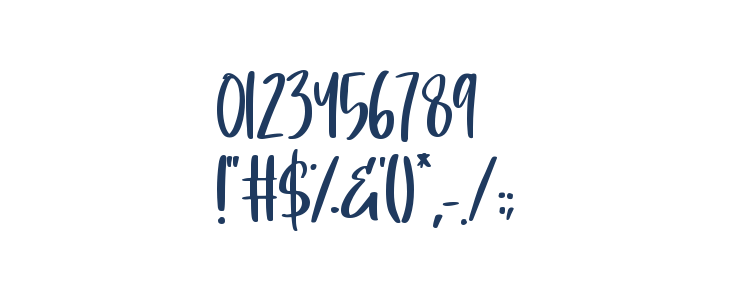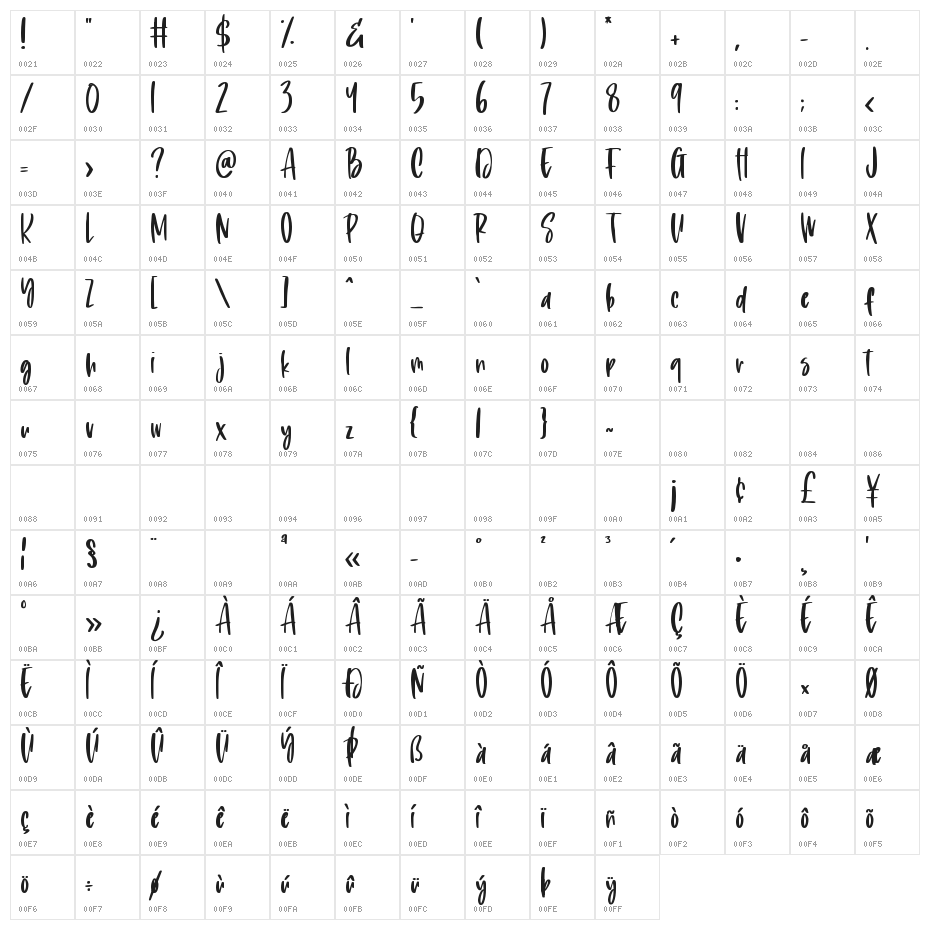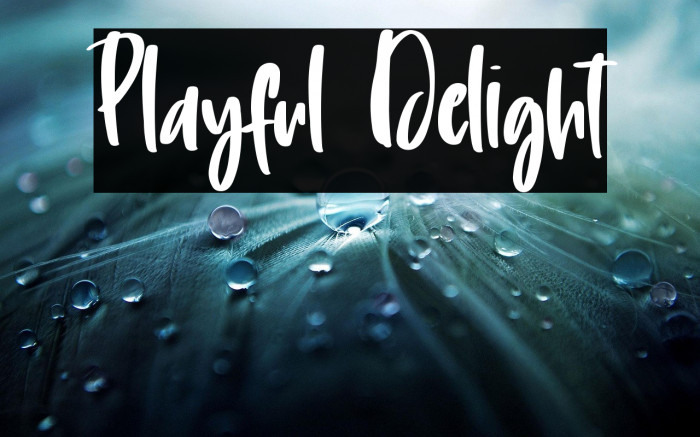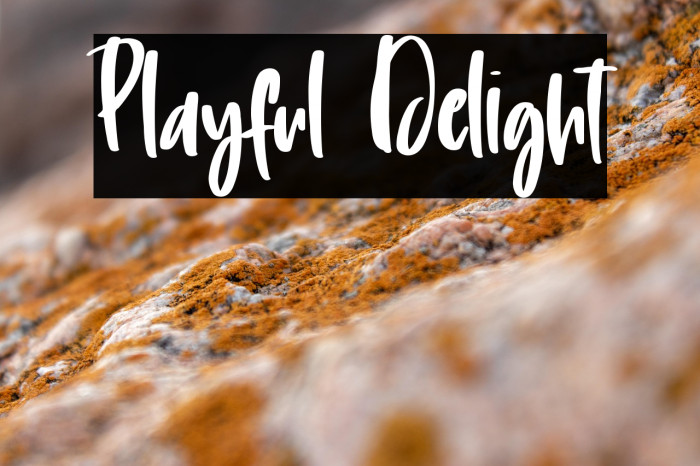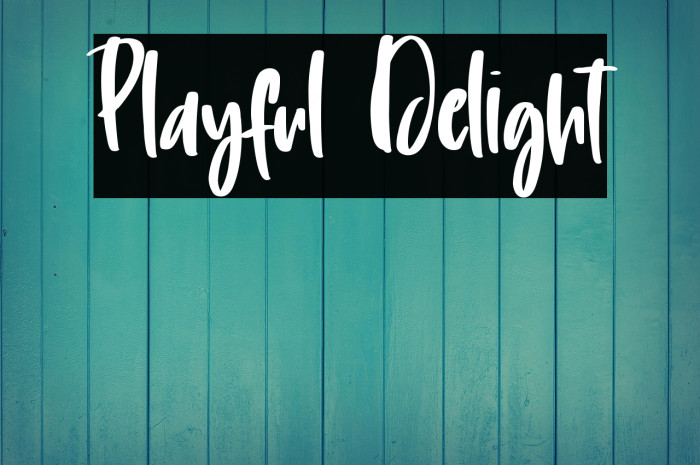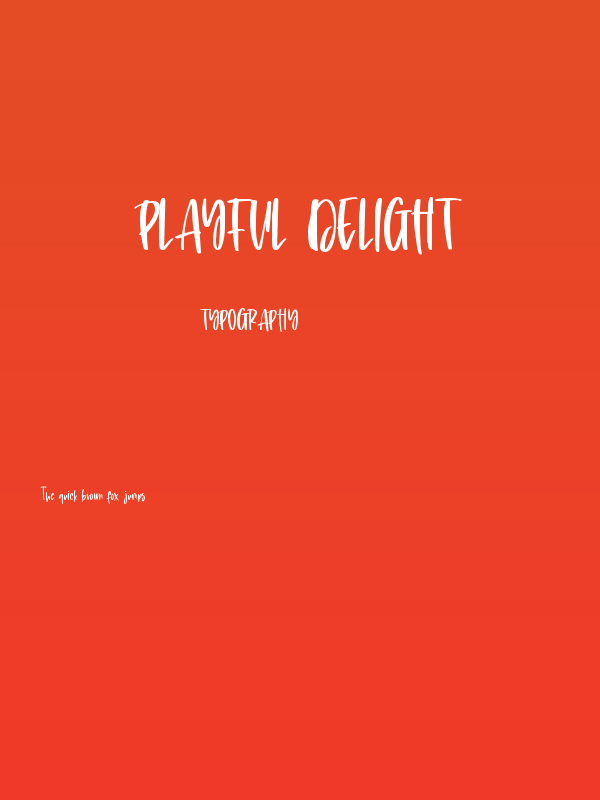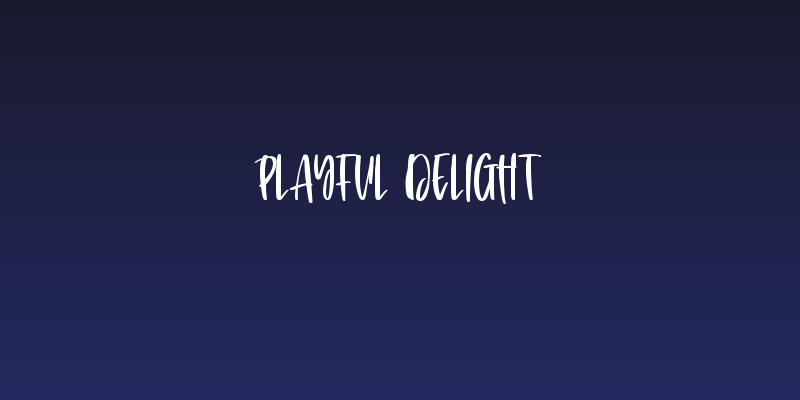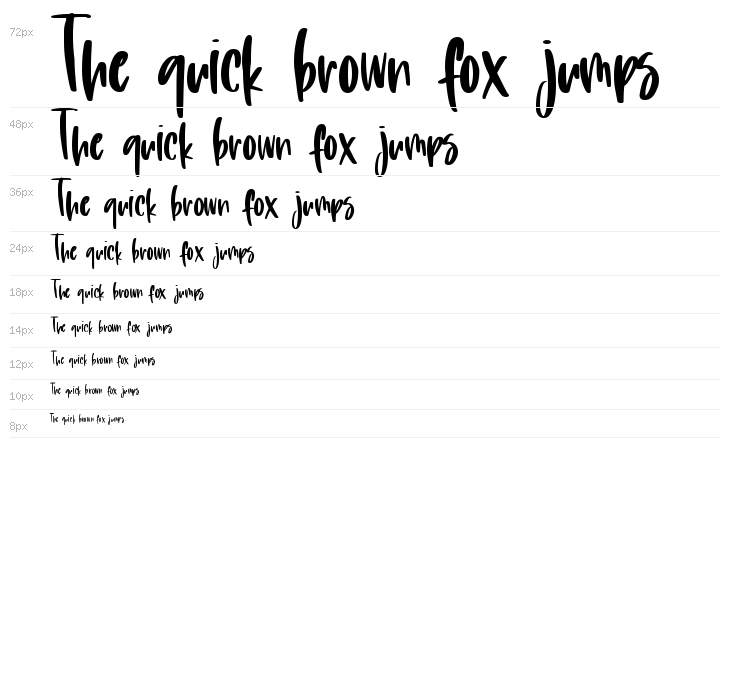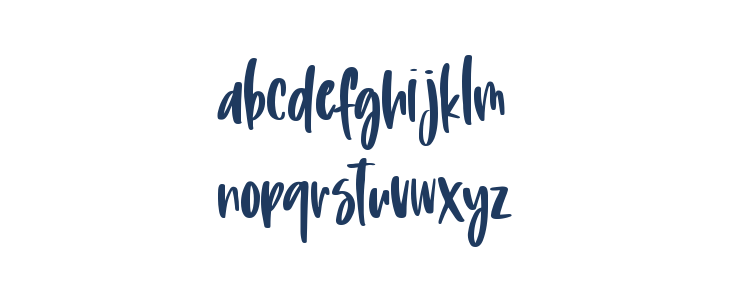
Playful Delight Font
Playful Delight Description
This font exudes a lively and energetic vibe, characterized by its bold, flowing strokes and playful curves. The letters are crafted with a handwritten style that adds a personal and informal touch, making it ideal for creative and fun projects. The uppercase letters are tall and slightly narrow, while the lowercase letters maintain a consistent flow, enhancing readability. The numbers and special characters are designed with the same playful flair, ensuring a cohesive look across all text elements.